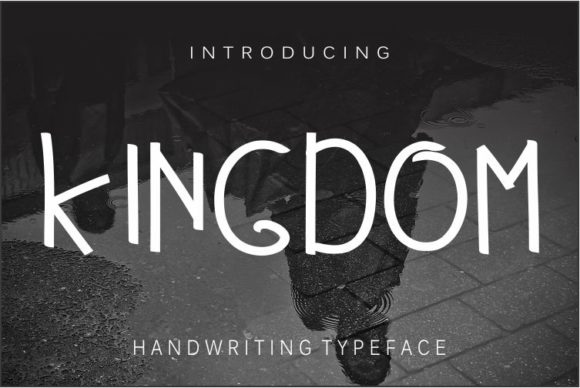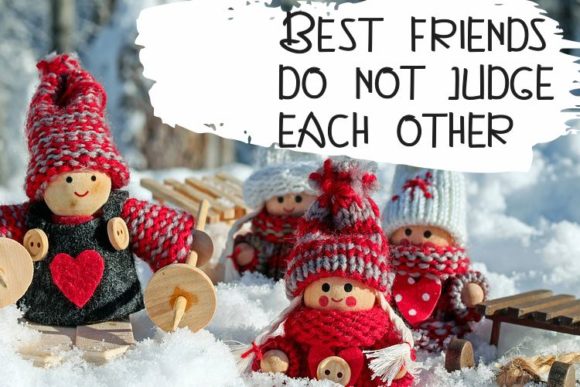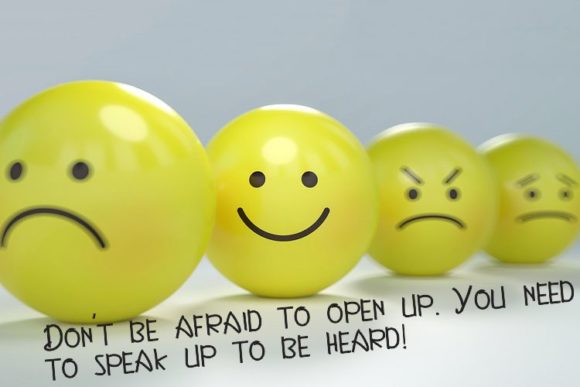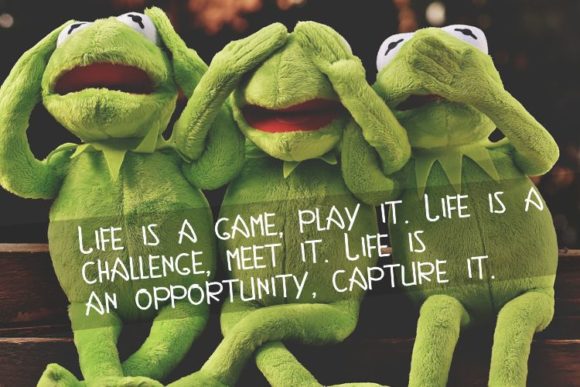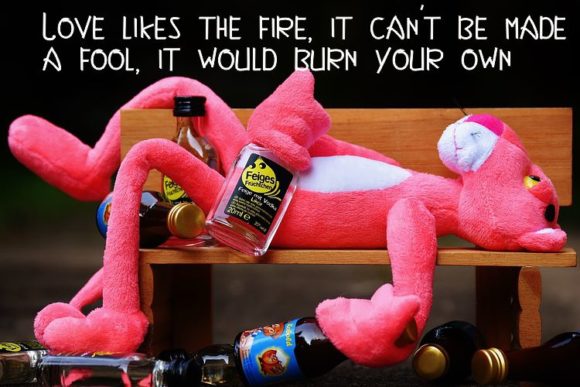
HomeScript FontsKingdom Font Script Fonts Kingdom Font FacebookXPinterestWhatsApp Kingdom Font Poster 2 Kingdom Font Poster 3 Kingdom Font Poster 4 Kingdom Font Poster 5 About Kingdom Font The Kingdom is a handwritten typeface. It has a clean and modern style which can be used for various designs. DOWNLOAD NOW People also explored Pinkylate Font Hey Jinggo Font Dakota Magic! Glowing Font Handley Font Summer Font Little Tokyo Font Beatrice Font Mondriana Font Dahlila Font 259 0 TagsKingdom Font Previous articleGlitter FontNext articleAkhadias Font LEAVE A REPLY Cancel reply Comment: Please enter your comment! Name:* Please enter your name here Email:* You have entered an incorrect email address! Please enter your email address here Website: Save my name, email, and website in this browser for the next time I comment. Personal Use Free Squealer Personal Use Free Read more about this font Shkoder 1989 Personal Use Free Read more about this font Love Ya Personal Use Free Read more about this font Winner Personal Use Free Read more about this font BLOG Transform Your Website: Elevate Your Typography with 7 Best Web Font Generators Are you ready to transform your website's typography from ordinary to extraordinary? Great! Today, we're diving into the world of web font generators, which... How to Cut Any Font on Cricut: Convert a Font to SVG (Free) Top 10 Handwritten Fonts That Elevate Your Designs Elegant Wedding Invitation Fonts – Handwritten & Script Fonts